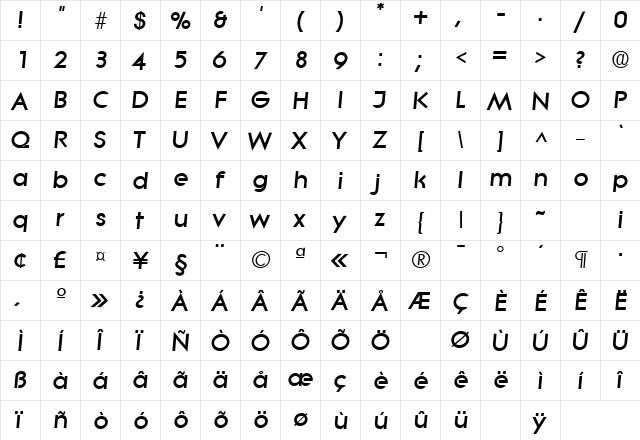
Litera Bold Italic
Design Context for Litera Typeface
Litera offers clean, dependable letterforms without strong stylistic allegiance, making it a practical choice for designers who need flexibility. The slanted form adds forward momentum and visual energy. Its bold stroke weight gives it real presence on the page.
Pro Tip: Use Litera for emphasis, pull quotes, and subheadings where its slanted energy can add rhythm to the layout.